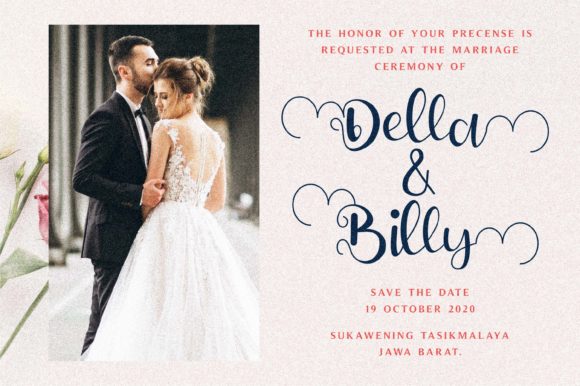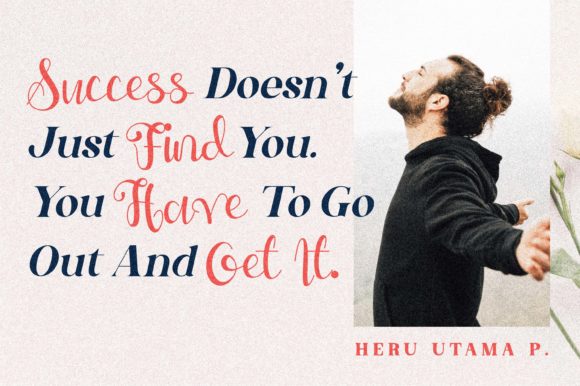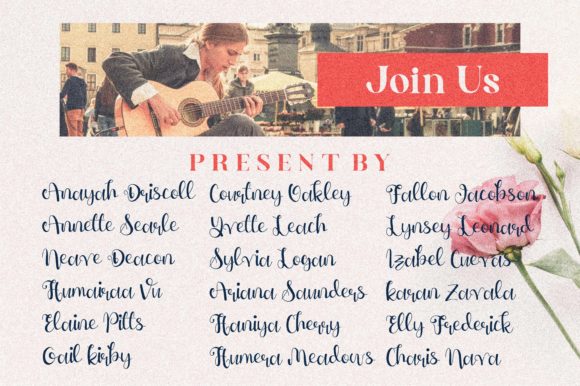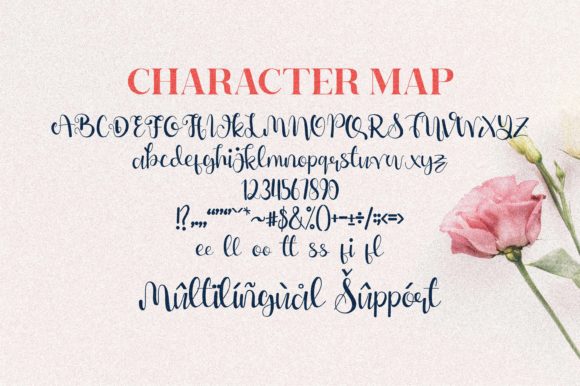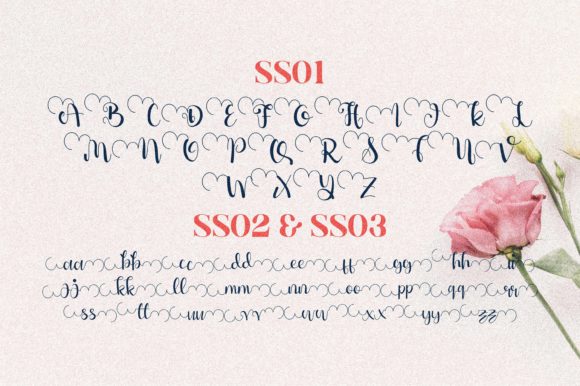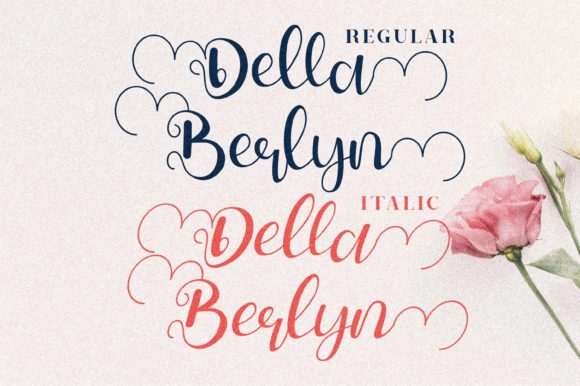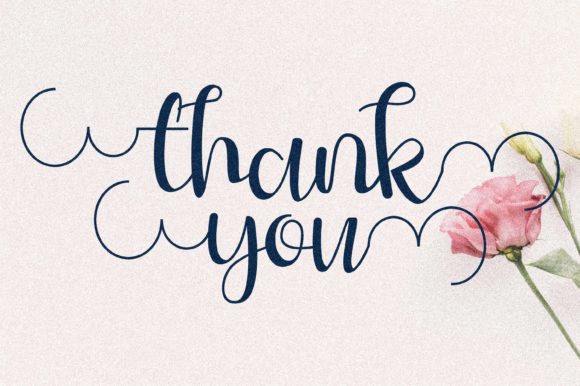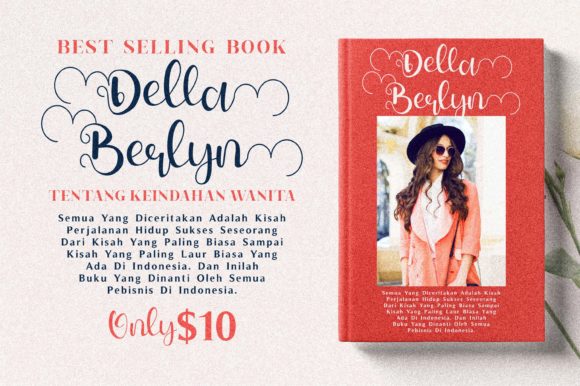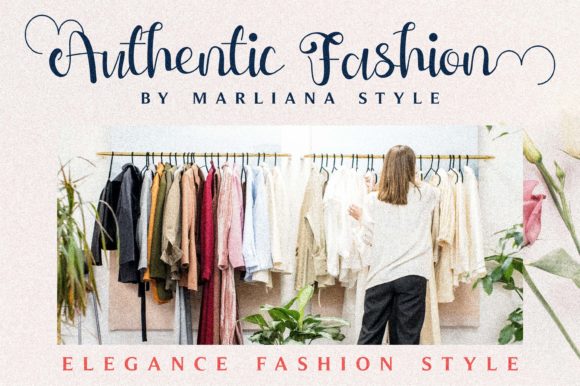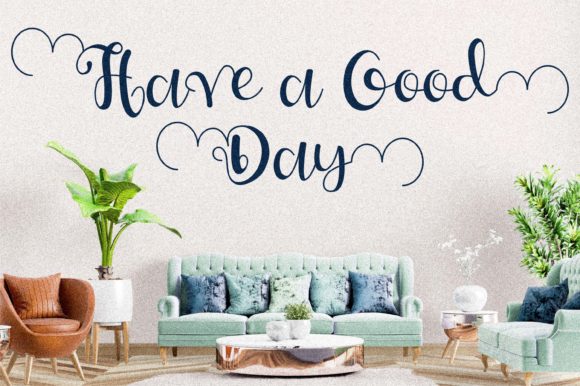
Della Berlyn Font
About Della Berlyn Font
Della Berlyn sounds absolutely enchanting! As a romantic and sweet script font, it adds a touch of elegance and charm to your designs. Whether you’re working on wedding invitations, thank you cards, quotes, greeting cards, logos, business cards, or any other project that requires a handwritten touch, Della Berlyn is sure to captivate with its stunning features.
When it comes to wedding invitations, Della Berlyn can set the perfect tone for a romantic and memorable celebration. Its romantic and sweet nature enhances the overall aesthetic, creating an invitation that exudes love and sophistication. The varying baseline and smooth lines of Della Berlyn add a sense of movement and elegance, making your wedding invitations visually stunning.
Thank you cards, quotes, and greeting cards can also benefit from the romantic and sweet style of Della Berlyn. Its handwritten touch brings a personal and heartfelt feel to your messages, enhancing the sincerity and warmth of your words. Whether you’re expressing gratitude, sharing inspiring quotes, or sending thoughtful greetings, Della Berlyn can help you create designs that touch the hearts of your recipients.
Logos and business cards designed with Della Berlyn can make a lasting impression. Its elegant and charming script adds a touch of uniqueness and sophistication to your brand identity. Whether you’re establishing a personal brand or a creative business, Della Berlyn can help you create a logo and business card design that stands out and leaves a memorable impression.
The inclusion of gorgeous glyphs and stunning alternates in Della Berlyn allows for additional customization and creativity. You can explore various letterforms and embellishments to add extra flair and personalization to your designs, making them truly one-of-a-kind.
In summary, Della Berlyn is a romantic and sweet script font that adds elegance and charm to your designs. Whether it’s for wedding invitations, thank you cards, quotes, greeting cards, logos, business cards, or other projects, Della Berlyn brings a handwritten touch that is both visually stunning and heartfelt. Explore the varying baseline, smooth lines, gorgeous glyphs, and stunning alternates to create designs that leave a lasting impression. Let Della Berlyn’s romantic and sweet nature elevate your creative endeavors and create designs that resonate with your audience.